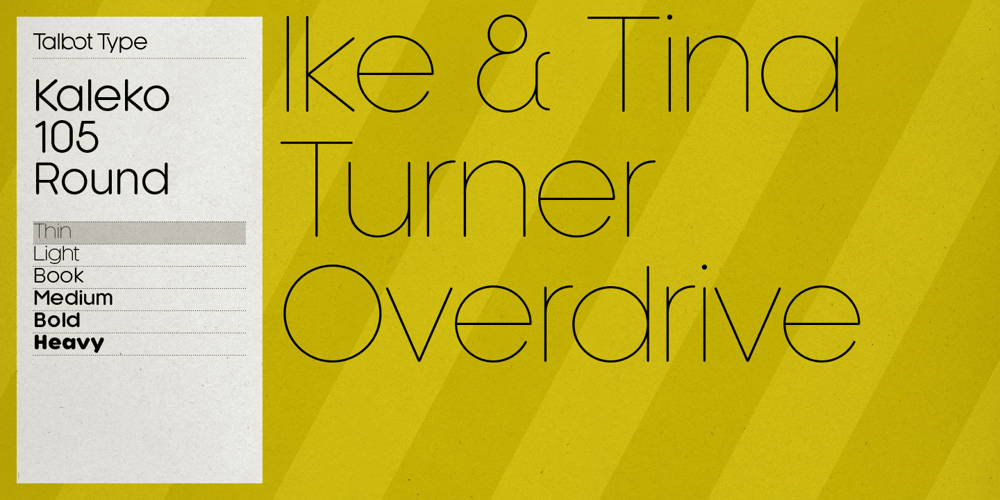
Kaleko 105 Round Font Family was designed by Adrian Talbot and published by Talbot Type. Kaleko 105 Round contains 12 styles and family package options. Kaleko 105 Round is a rounded variation of Talbot Type font Kaleko 105. It’s a well-balanced, versatile, modern sans, highly legible as a text font and with a clean, elegant look as a display font at larger sizes. The rounded terminals give it a friendly, approachable look. The Kaleko 105 Round family comprises of six weights and is closely related to Kaleko 205 Round. The most notable differences between the two variations are the single-storey lower case a and g in Kaleko 105 Round, where they are two-storey in Kaleko 205 Round.